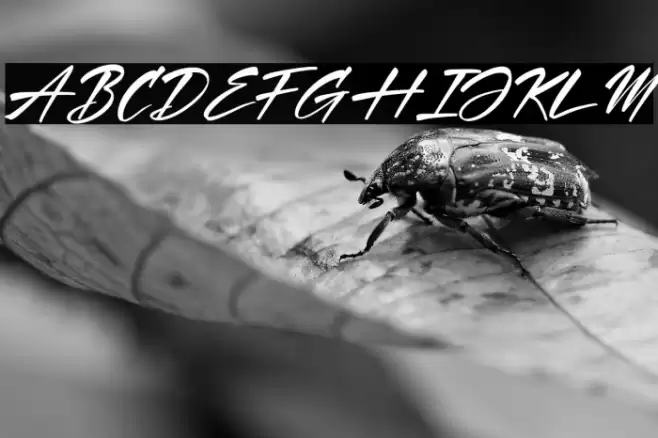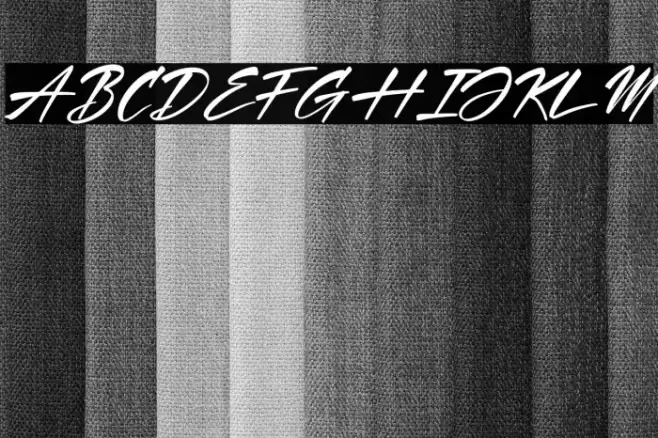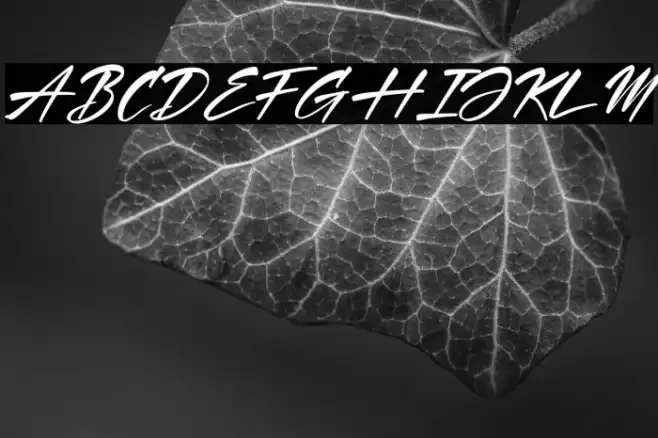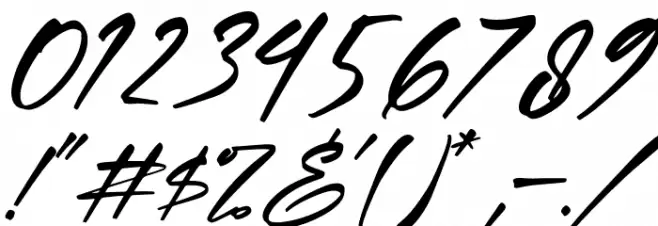
Hartman & Richard Italic Font
Hartman & Richard Italic Description
This font exhibits a dynamic and fluid script style, characterized by its elegant and flowing cursive letters. The uppercase letters are bold and slightly slanted, with a distinctive flair that adds a sense of movement and sophistication. The lowercase letters maintain a consistent slant, with smooth connections between characters, enhancing the cursive effect. Numbers and special characters follow the same stylistic approach, ensuring a cohesive look across all elements. The overall appearance is both stylish and legible, making it suitable for a variety of creative applications.
A dynamic and elegant script font with a fluid, cursive style from Uncategorized fonts.
- Font: Hartman & Richard Italic
- Proposed Projects: Ideal for wedding invitations, branding, logo design, and elegant stationery.
- Overall Style: Elegant, Decorative
- Use Case: Logos, Invitations, Branding